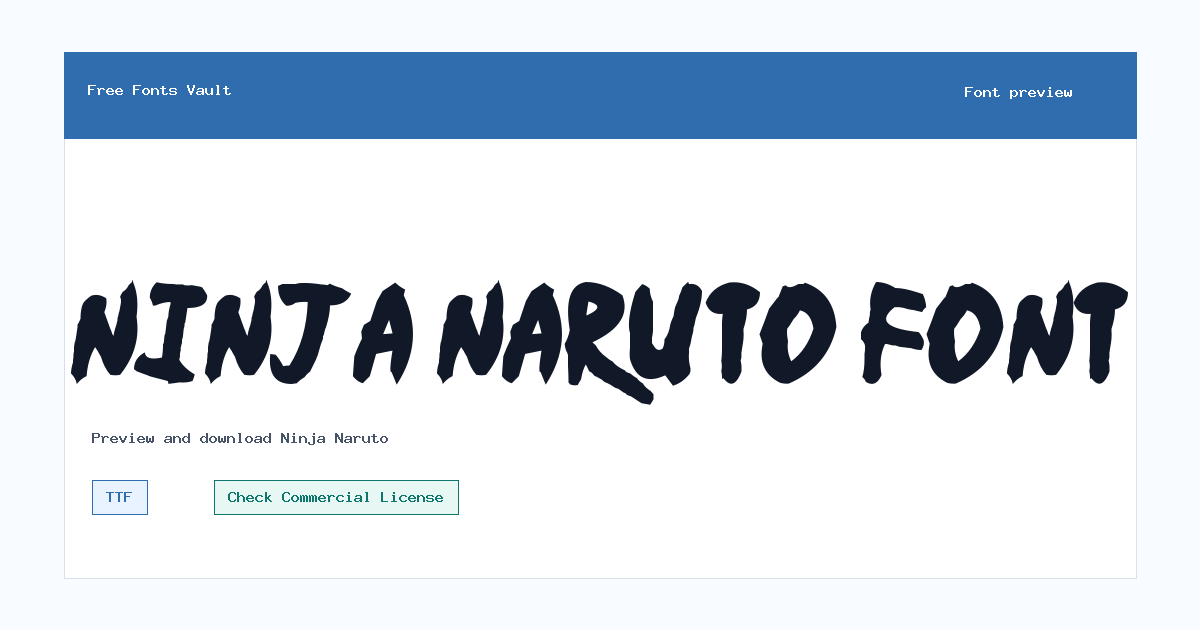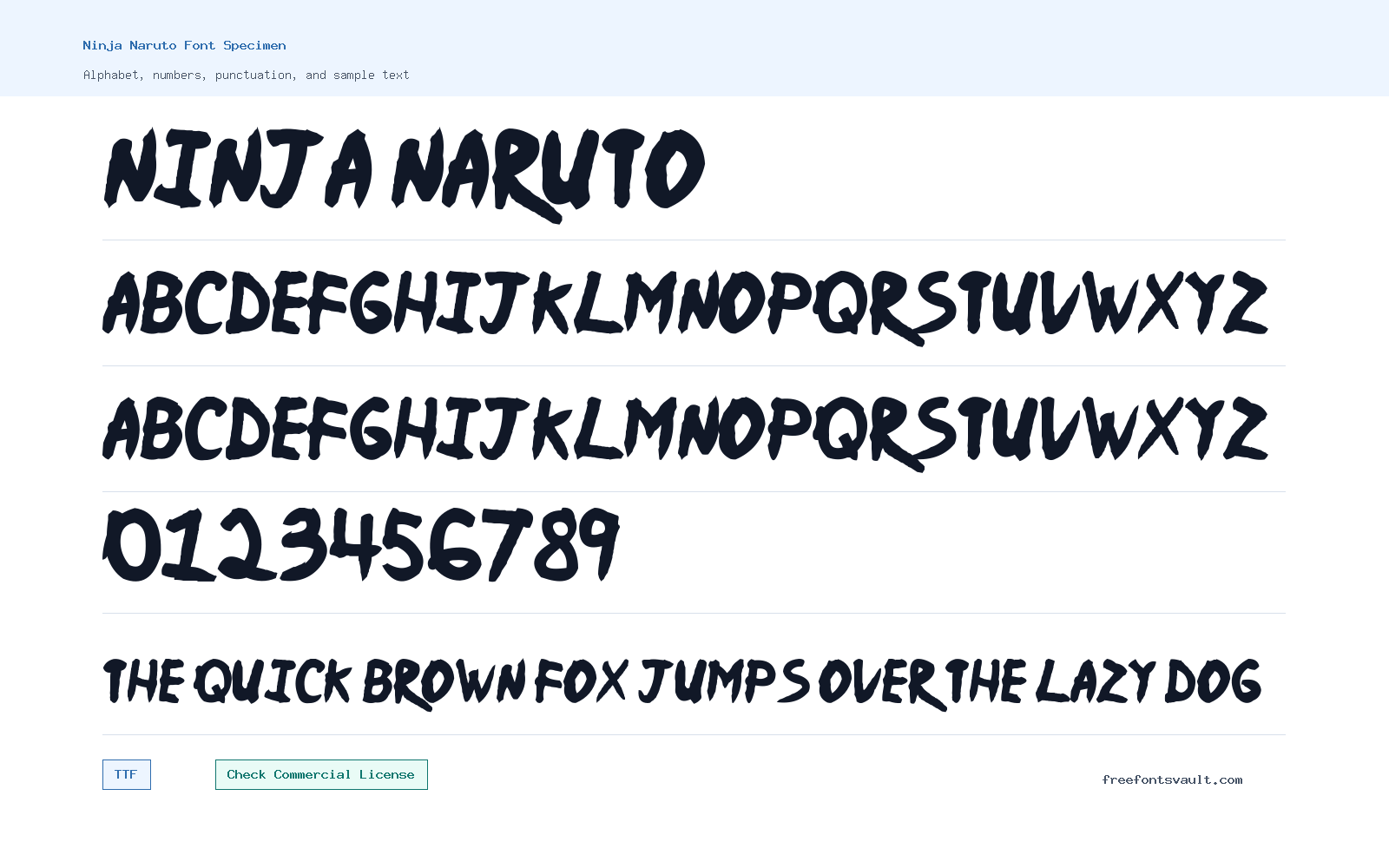
Ninja Naruto
Ninja Naruto font.
Ninja Naruto is a themed display font for users who want a bold, anime-style look in short text. It is best tested in the preview with names, titles, and compact headings before download.
About Ninja Naruto Font
Ninja Naruto is supplied as a regular TrueType font file, making it straightforward to install and test in common design and document apps. The font name gives it a clear ninja and anime direction, so it fits best when the design needs a playful action-inspired tone rather than a neutral reading style.
Use it for short words, logos for personal projects, fan-style graphics, posters, banners, thumbnails, stickers, or title treatments where the font can be shown at a larger size. For body text, long paragraphs, or small interface labels, pair it with a clean sans serif so the main message stays easy to read.
A safe way to use Ninja Naruto is to treat it as an accent font: set one or two words, check the shapes at the final size, and keep enough spacing around the letters. If the design is connected to a known anime or game property, separate the type choice from any protected logo, character art, or brand name you do not own. That keeps the font useful for fan-style posters and personal graphics while avoiding confusion with official artwork.
- Themed display font suited to short, high-impact text
- Anime-inspired titles, fan graphics, and poster text
- Large headings, thumbnails, stickers, and playful branding drafts
What is Ninja Naruto best used for?
It is best for short display text such as titles, posters, fan-style graphics, thumbnails, and other designs where a themed anime or ninja feel is useful.